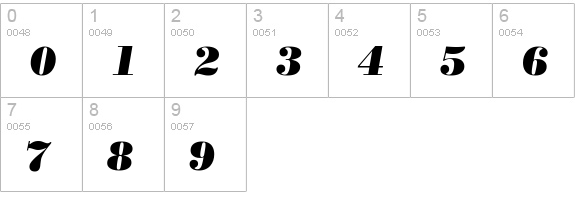
Bodoni Poster SSi Poster Italic Font Details
Bodoni Poster SSi Poster Italic is a distinctive, italic variant in the Bodoni typeface family \xE2\x80\x94 well suited to design and typography projects.
Bodoni Poster SSi Poster Italic font is a stunning and elegant typeface that exudes sophistication and modernity. Its sleek and stylish design makes it perfect for creating eye-catching posters, banners, and other promotional materials. The italic style adds a touch of flair and elegance to any design, making it stand out from the crowd. And the best part? Bodoni Poster SSi Poster Italic font is available for free download at FontsMarket.com! Whether you're a graphic designer, marketer, or simply someone looking to add a touch of class to your projects, this font is a must-have in your collection. Don't miss out on the opportunity to elevate your designs with this beautiful and versatile typeface. Download Bodoni Poster SSi Poster Italic font today and unleash your creativity!